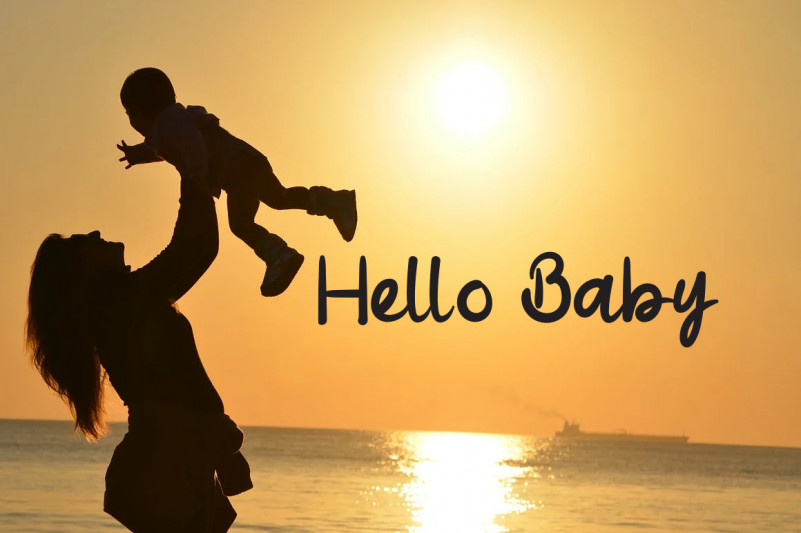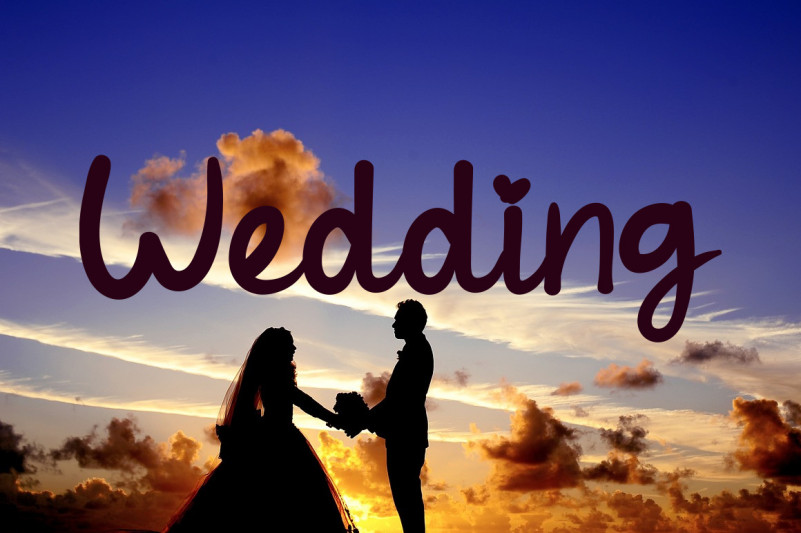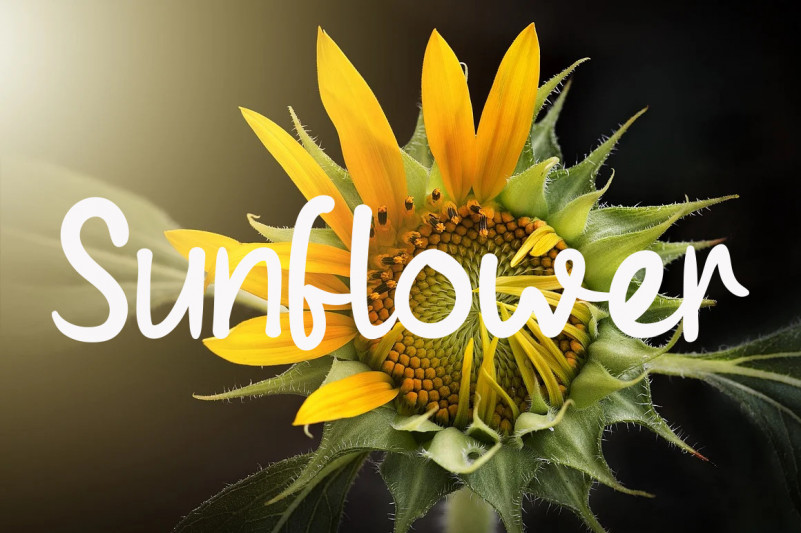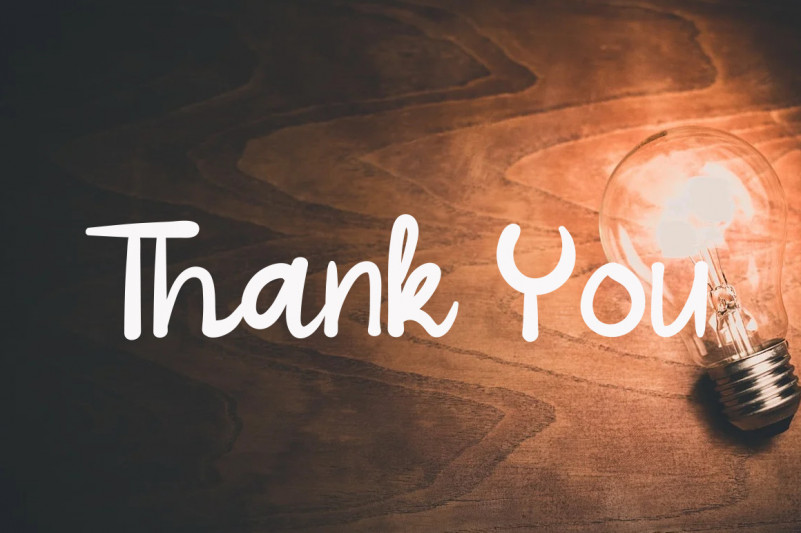
Hello Love Script Font
This is a cute handwritten font. Its sweet and full of life style makes this font a wonderful choice for brightening up your designs.